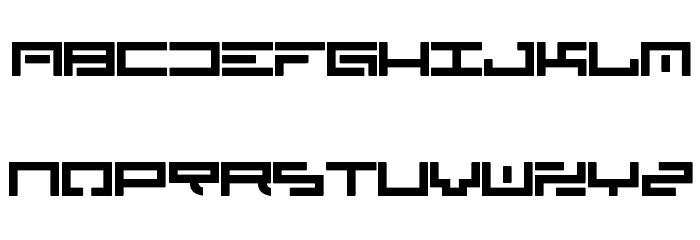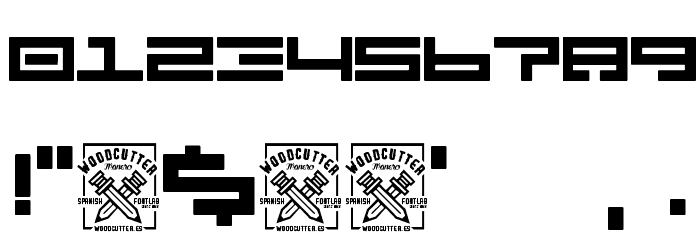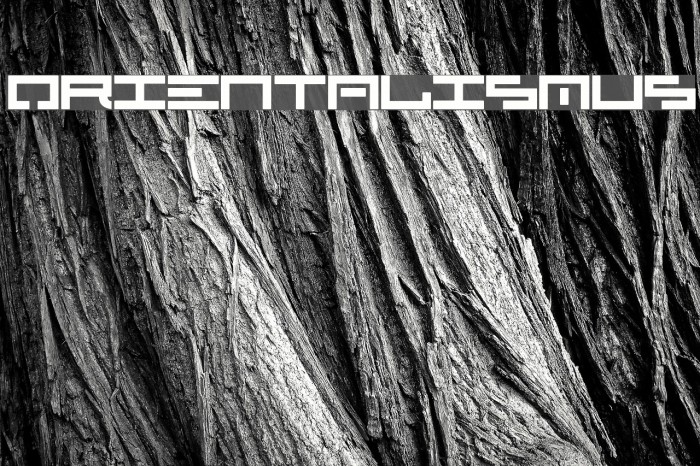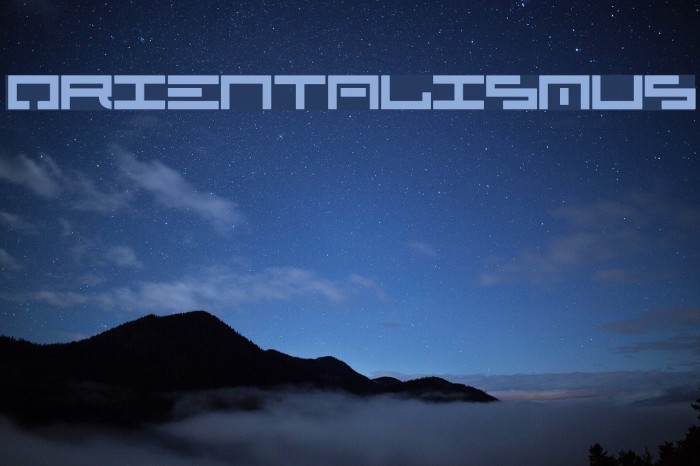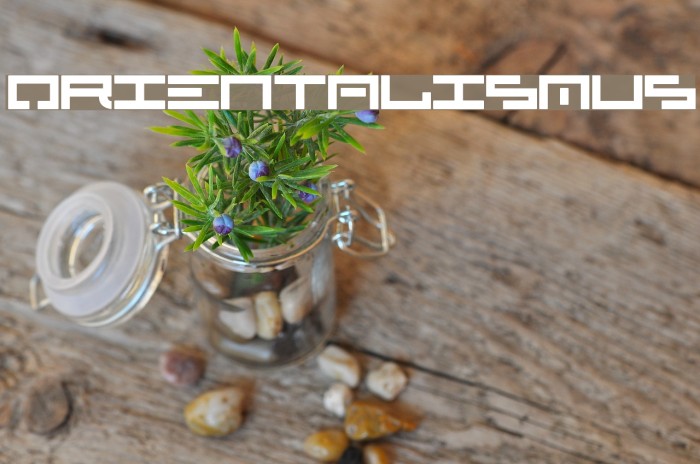
Orientalismus Font
This font features a geometric and futuristic design, characterized by its blocky and angular letterforms. The characters are constructed with a series of straight lines and right angles, giving it a mechanical and structured appearance. The uppercase and lowercase letters share a similar style, maintaining consistency throughout the typeface. Numbers and special characters are designed to match the overall aesthetic, ensuring a cohesive look. The font's unique style makes it suitable for projects that require a modern and edgy feel.
A geometric and futuristic font with blocky, angular letterforms.
- Proposed Projects: Ideal for sci-fi themed designs, technology branding, video game interfaces, and modern posters.